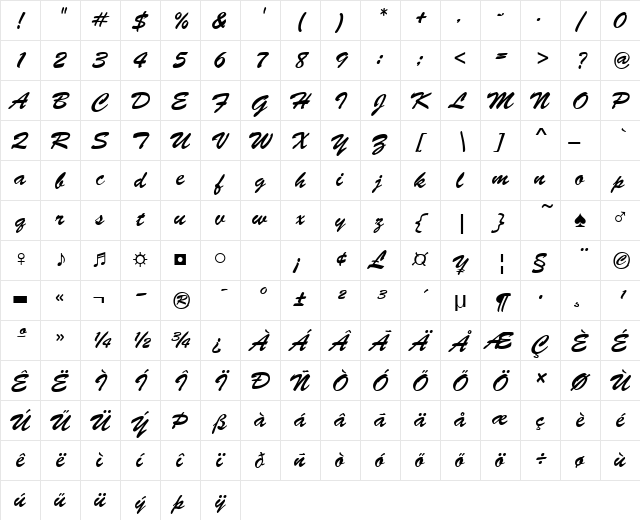
H_Brush Script Italic Free Font
H_Brush Script Italic
Complete H_Brush Script Italic glyph index. Displaying only characters natively supported by H_Brush Script Italic font.
Design Context for H_Brush Script
H_Brush Script flows with the natural rhythm of handwritten lettering, making it ideal for designs that call for warmth and personal expression.
Font Pairing: Combine H_Brush Script with a simple geometric sans for maximum contrast - the tension between flowing curves and clean structure is a classic typographic pairing.
Pro Tip: Use H_Brush Script for short runs of text - names, titles, or taglines. Extended body copy in script faces tires the eye quickly.